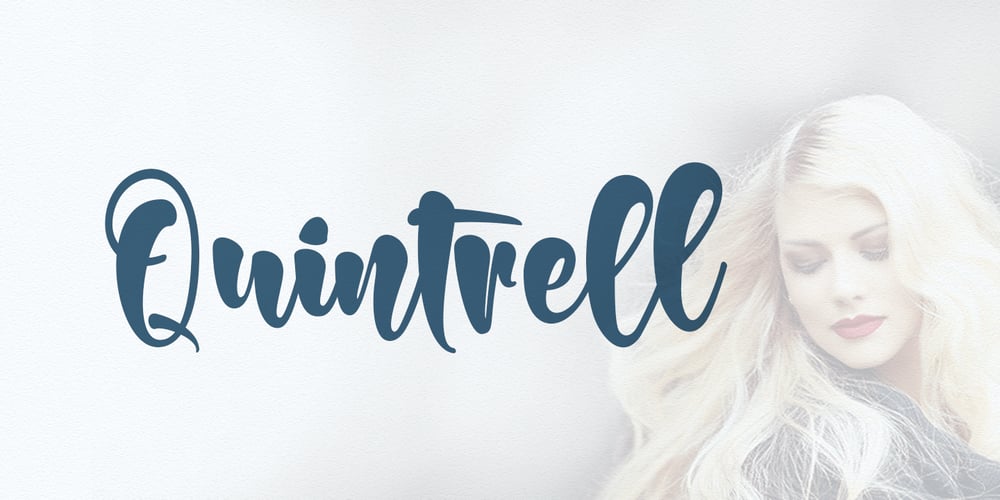
Quintrell
Quintrell font
Quintrell Font Family was designed by Ront Jorse and published by Jorsetype. Quintrell contains 1 styles and family package options. Quintrell is a very natural looking yet bold handwritten script. The Features of this fonts is; Standart ligatures, Stylistic Alternates, Stylistic sets, PUA Unicode (Private Use Areas). Programs that support in this font are Adobe Photoshop, Adobe Illustrator, Adobe Indesign, Corel Draw and Microsoft Office.